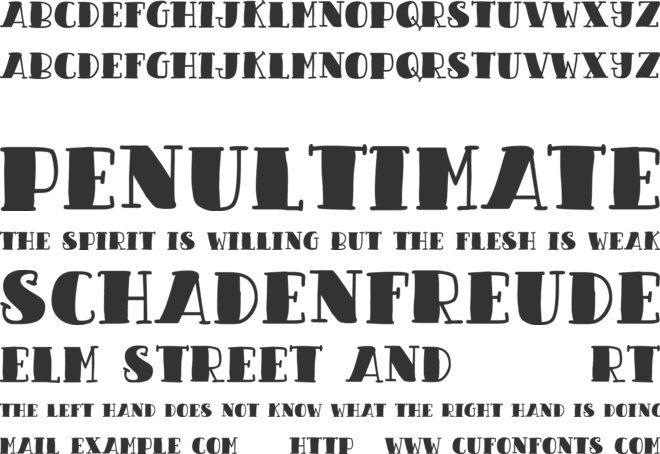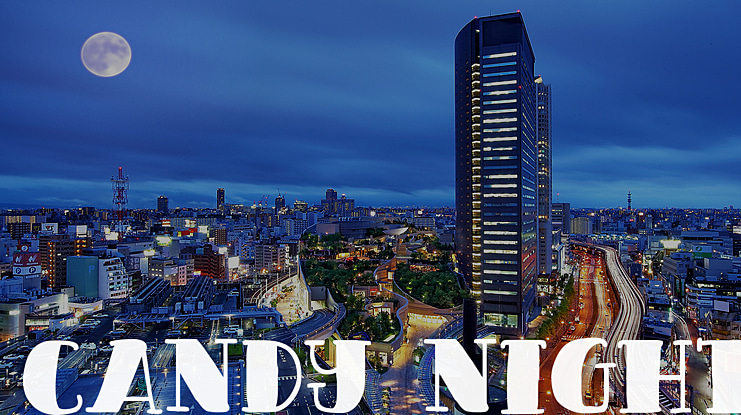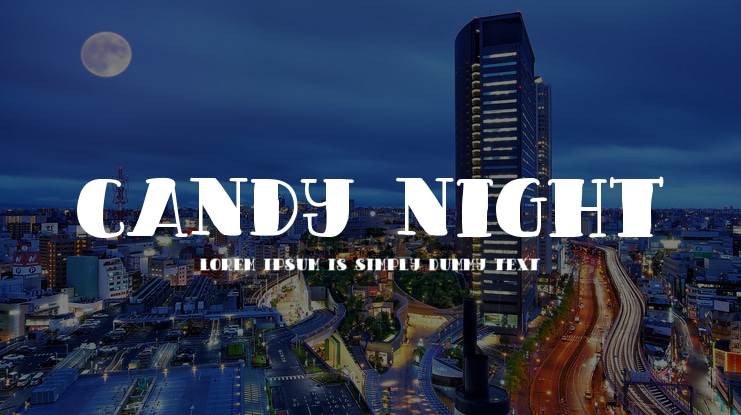
Candy Night Font
Introduce to you, A Candy Night Font! This is a bold & trendy handwritten Slab Serif font. This font is made directly with a brush and wet ink to produce a natural style!
Candy Night font preview